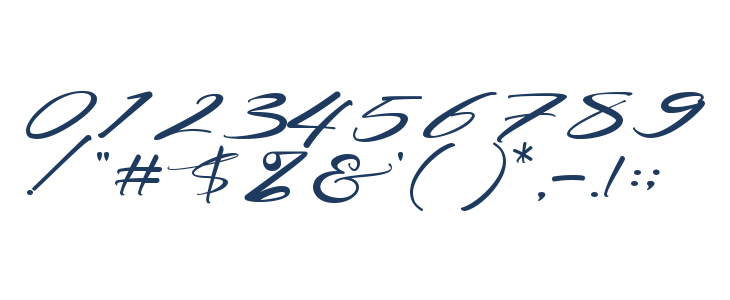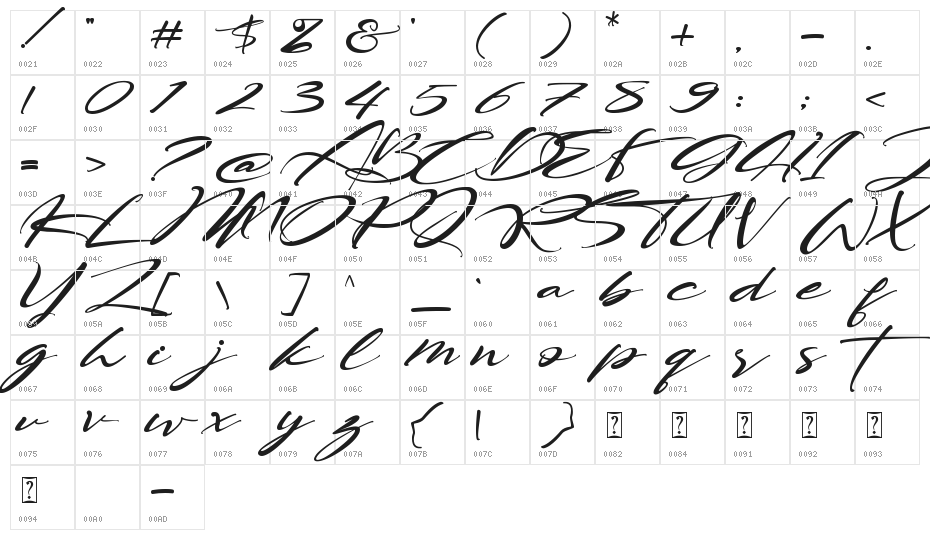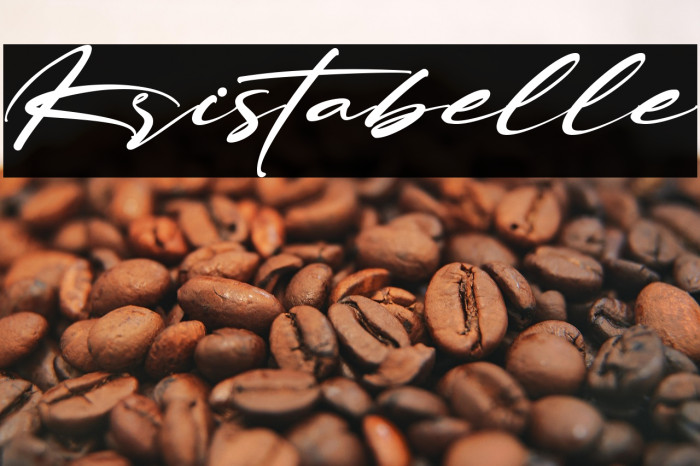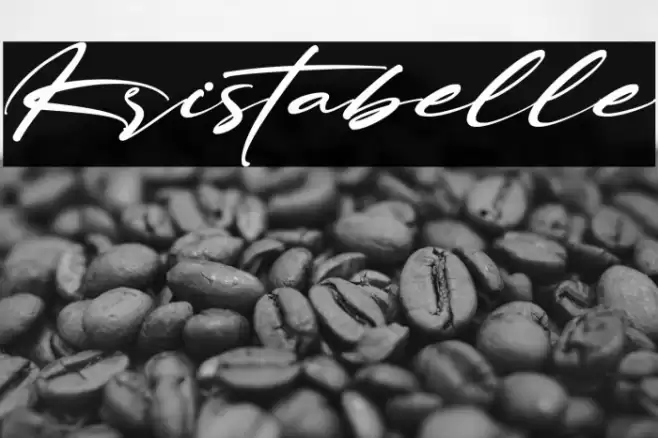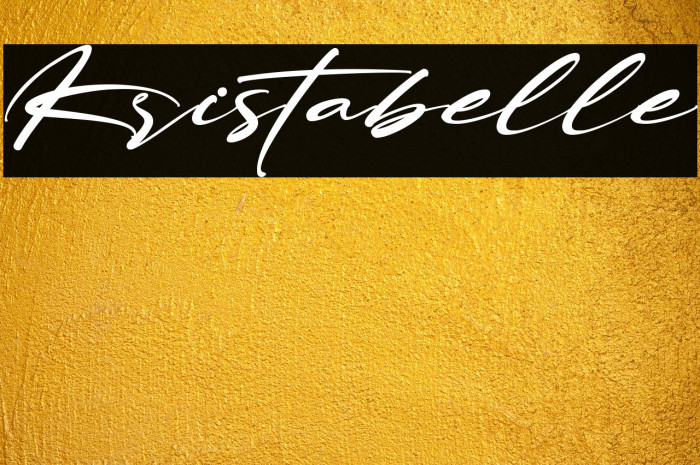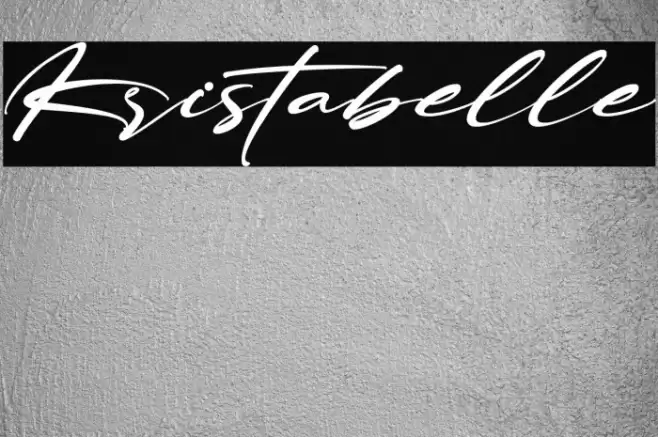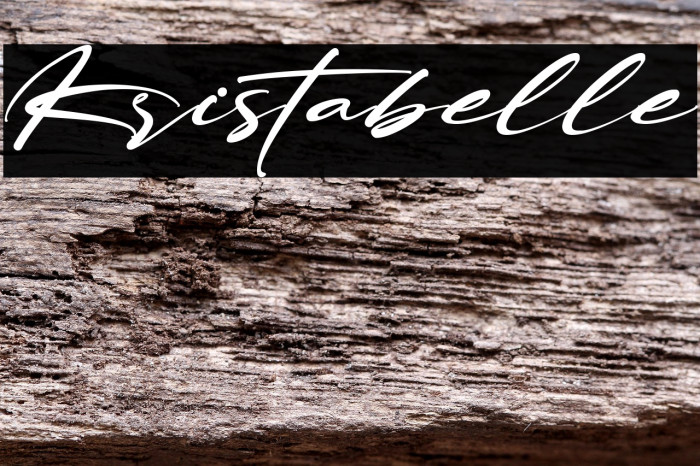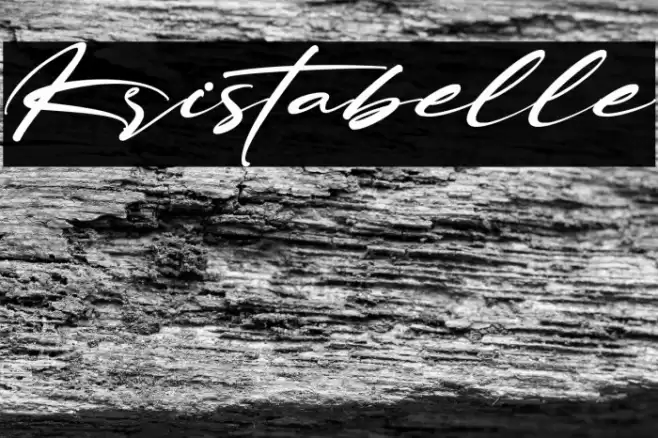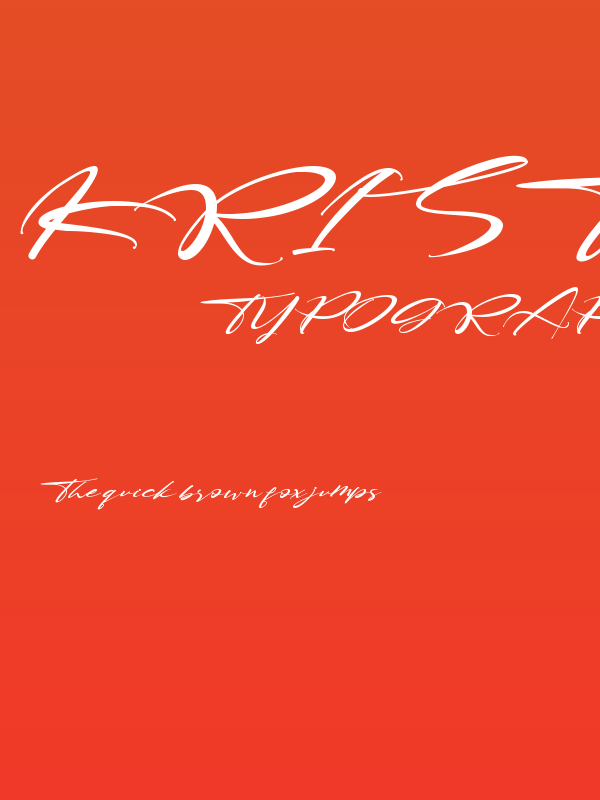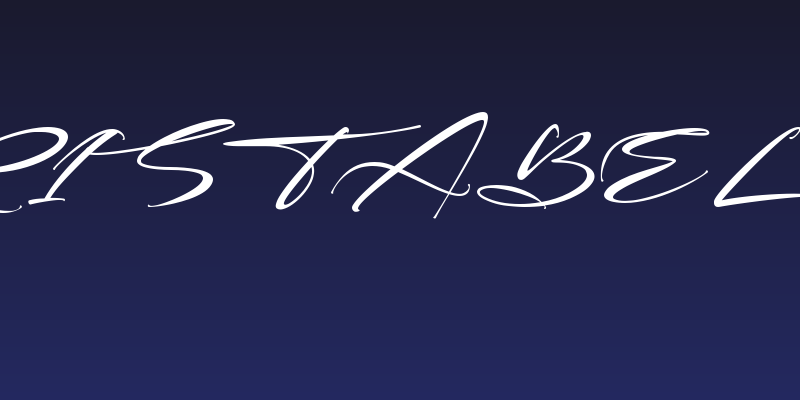
Kristabelle Font
Kristabelle Description
This font exudes elegance and sophistication with its fluid, cursive style. The letters are interconnected, creating a seamless flow that mimics natural handwriting. The strokes vary in thickness, adding a dynamic and lively character to the text. The uppercase letters are slightly more elaborate, with flourishes that enhance their decorative appeal. The lowercase letters maintain a consistent style, ensuring readability while retaining their artistic flair. Numbers and special characters are designed to match the overall aesthetic, making this font versatile for various applications.
Overall StyleElegant
Use CaseLogos, Invitations, Artistic projects
Proposed ProjectsIdeal for wedding invitations, elegant branding, personal signatures, and artistic projects.